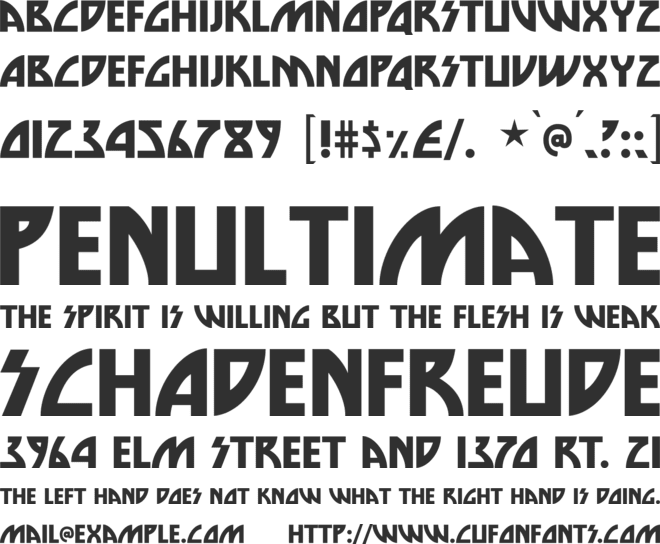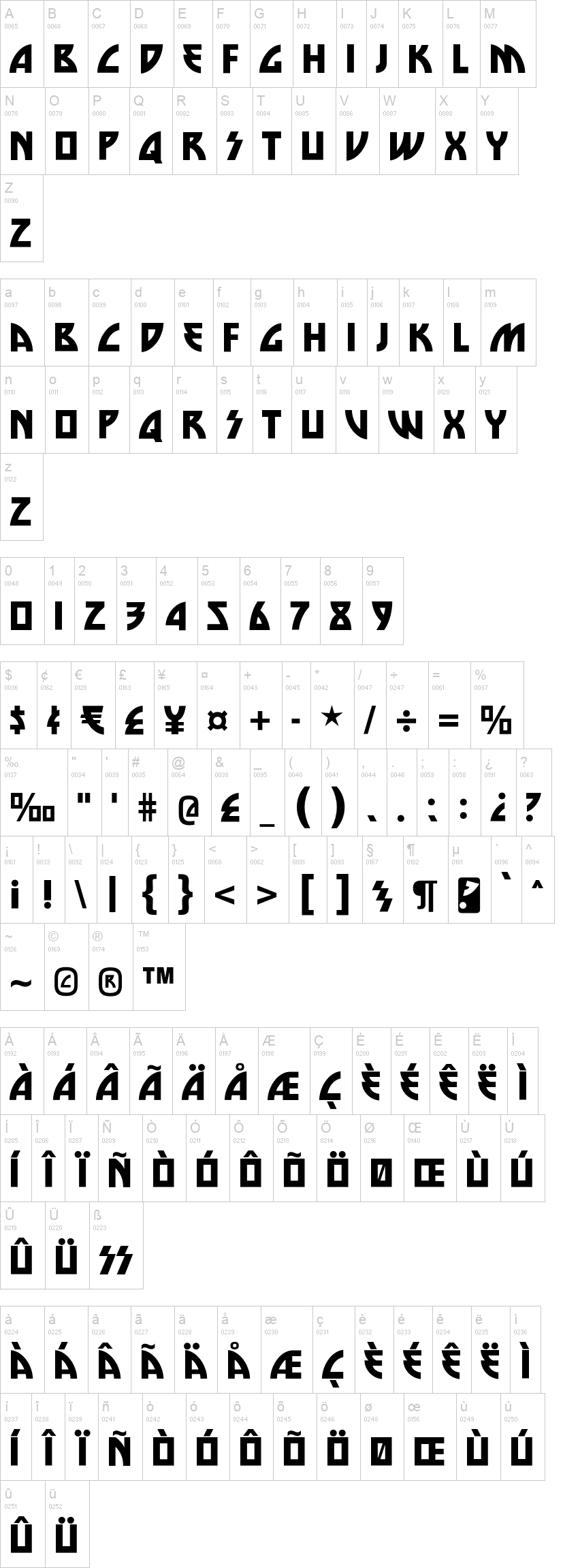
Die Nasty Font
Die Nasty Font - Download die nasty font or use it online to create. Web browse the categories, then change the fonts, and colors. A, m, v, and w all have variant forms that. Web die nasty is a glitzy arts & crafts headline typeface with a glam rock pedigree.
Web browse the categories, then change the fonts, and colors. Download die nasty font or use it online to create. Web die nasty is a glitzy arts & crafts headline typeface with a glam rock pedigree. A, m, v, and w all have variant forms that.
A, m, v, and w all have variant forms that. Web browse the categories, then change the fonts, and colors. Download die nasty font or use it online to create. Web die nasty is a glitzy arts & crafts headline typeface with a glam rock pedigree.
Web browse the categories, then change the fonts, and colors. A, m, v, and w all have variant forms that. Download die nasty font or use it online to create. Web die nasty is a glitzy arts & crafts headline typeface with a glam rock pedigree.
Web browse the categories, then change the fonts, and colors. Download die nasty font or use it online to create. A, m, v, and w all have variant forms that. Web die nasty is a glitzy arts & crafts headline typeface with a glam rock pedigree.
Die Nasty font
Web die nasty is a glitzy arts & crafts headline typeface with a glam rock pedigree. Download die nasty font or use it online to create. Web browse the categories, then change the fonts, and colors. A, m, v, and w all have variant forms that.
Web browse the categories, then change the fonts, and colors. A, m, v, and w all have variant forms that. Web die nasty is a glitzy arts & crafts headline typeface with a glam rock pedigree. Download die nasty font or use it online to create.
Die Nasty Font
A, m, v, and w all have variant forms that. Web browse the categories, then change the fonts, and colors. Download die nasty font or use it online to create. Web die nasty is a glitzy arts & crafts headline typeface with a glam rock pedigree.
Web die nasty is a glitzy arts & crafts headline typeface with a glam rock pedigree. Web browse the categories, then change the fonts, and colors. A, m, v, and w all have variant forms that. Download die nasty font or use it online to create.
Die Nasty Font Rockin' Arts & Crafts Headline Typeface
A, m, v, and w all have variant forms that. Web die nasty is a glitzy arts & crafts headline typeface with a glam rock pedigree. Web browse the categories, then change the fonts, and colors. Download die nasty font or use it online to create.
Die Nasty Regular Font
Web browse the categories, then change the fonts, and colors. A, m, v, and w all have variant forms that. Download die nasty font or use it online to create. Web die nasty is a glitzy arts & crafts headline typeface with a glam rock pedigree.
Web browse the categories, then change the fonts, and colors. Web die nasty is a glitzy arts & crafts headline typeface with a glam rock pedigree. A, m, v, and w all have variant forms that.